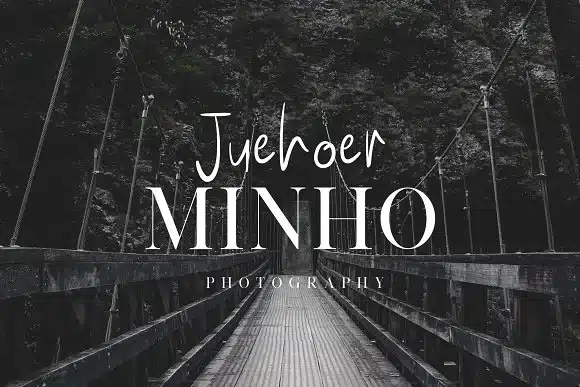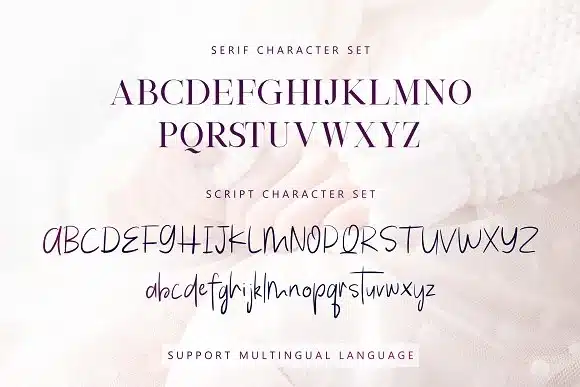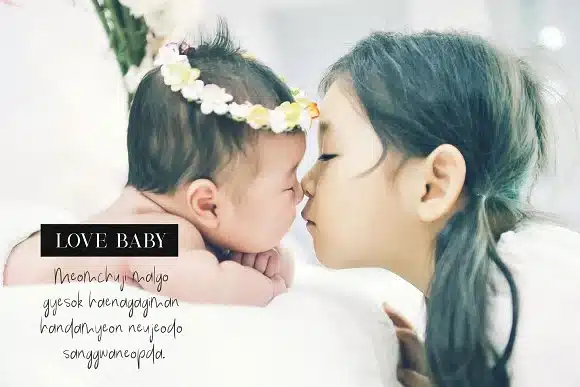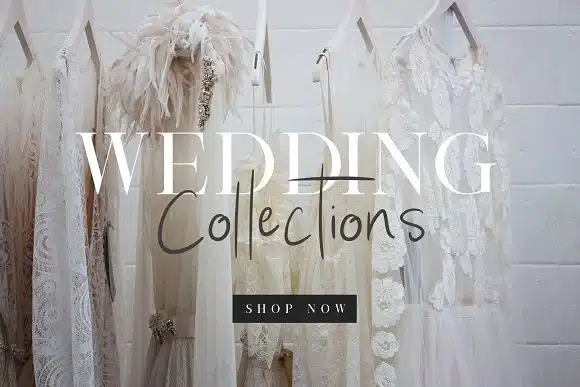
South Korea – Font Duo
WHO ELSE WANT A GREAT CLASSIC FONT?
Maybe you are wondering if there are any suitable fonts in any design project. Yes, now you can find it. Introducing our latest font “South Korea – Font Duo” Luckily, you don’t have to worry about that anymore with the South Korea font.
- South Korea serif and script font including upper & lowercase characters, numerals and more of symbols.
- Multilingual support for various languages